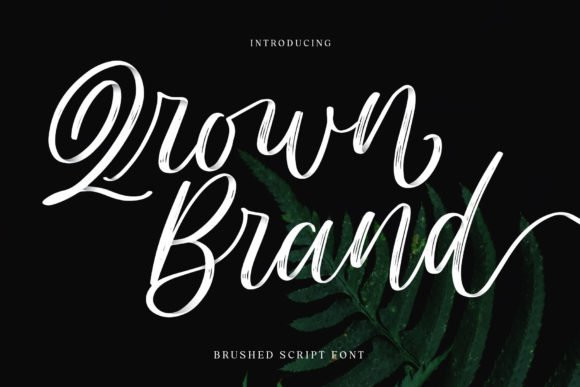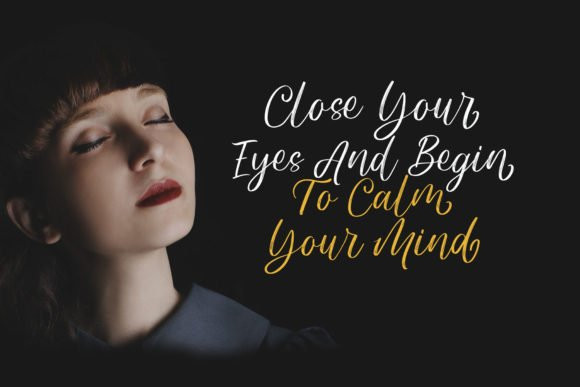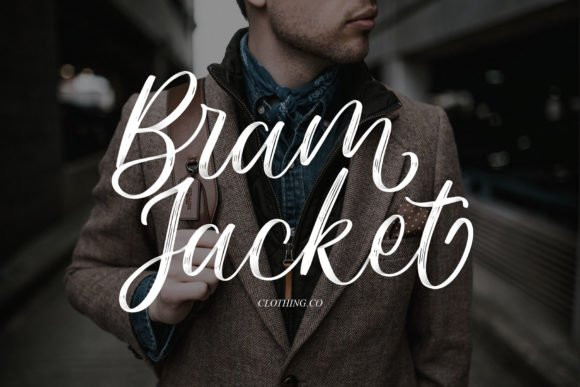
Qrown Brand Font
Qrown Brand is a lovely and cursive brushed script font. This font is PUA encoded which means you can access all of the glyphs and swashes with ease! Fall in love with its incredibly versatile style and use it to create spectacular designs!